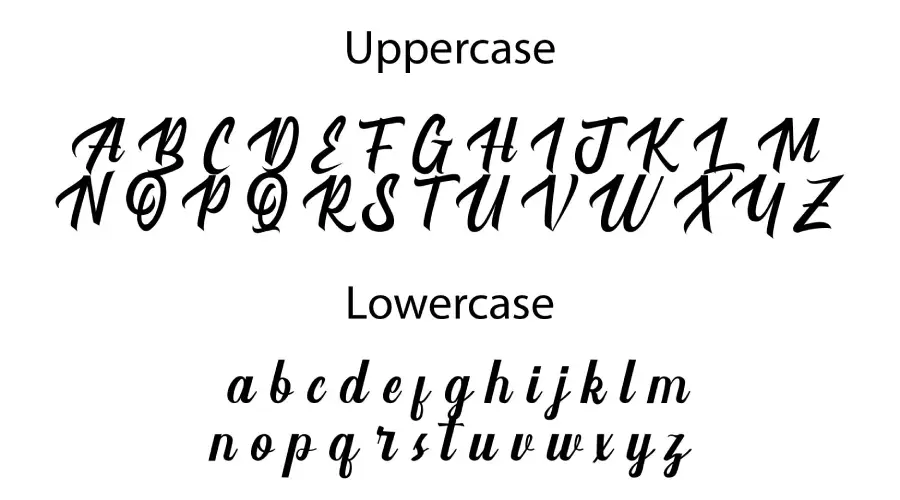
Hardball Font
Hardball Font comes with an old-fashioned sporting brush script font, that is inspired by the cool and bold sports world (like baseball) This font is sure to make a great addition to your projects. You can use it to brand your logo and posters, product packaging and signage, titles, and many more!
It comes with a complete assortment that includes Uppercase as well as Lowercase Basic Characters, Numerals, and Punctuation. This font would be ideal to be used for any type of project that needs an athletic look!
This Sscript font is modern and sophisticated. It can be used in packaging, logos, clothing, as well as quotes. You can incorporate it on your website or in animations that have the use of titling.
Some designers have started using this font in their portfolio presentations, art, as well as and instructional videos.